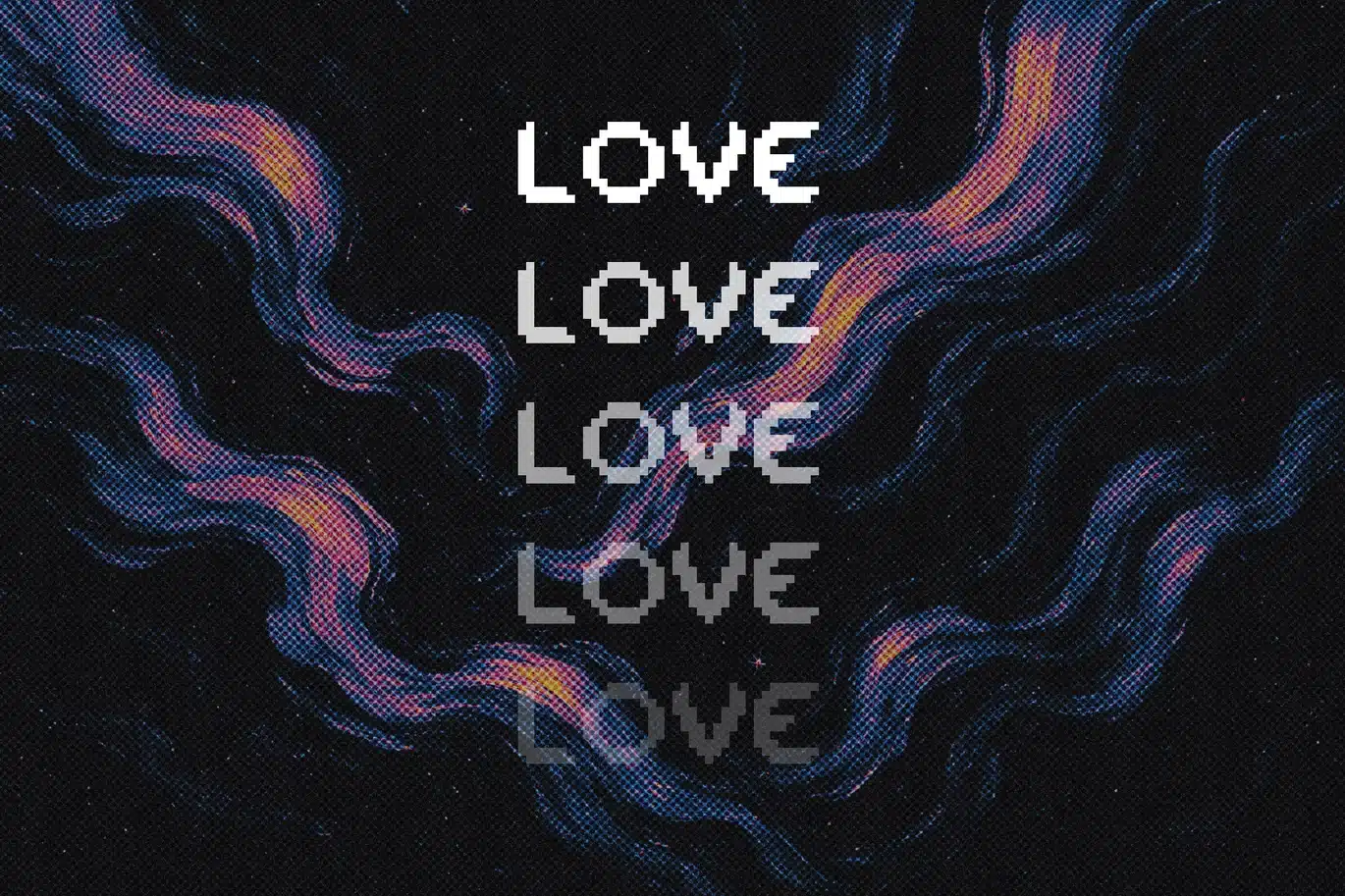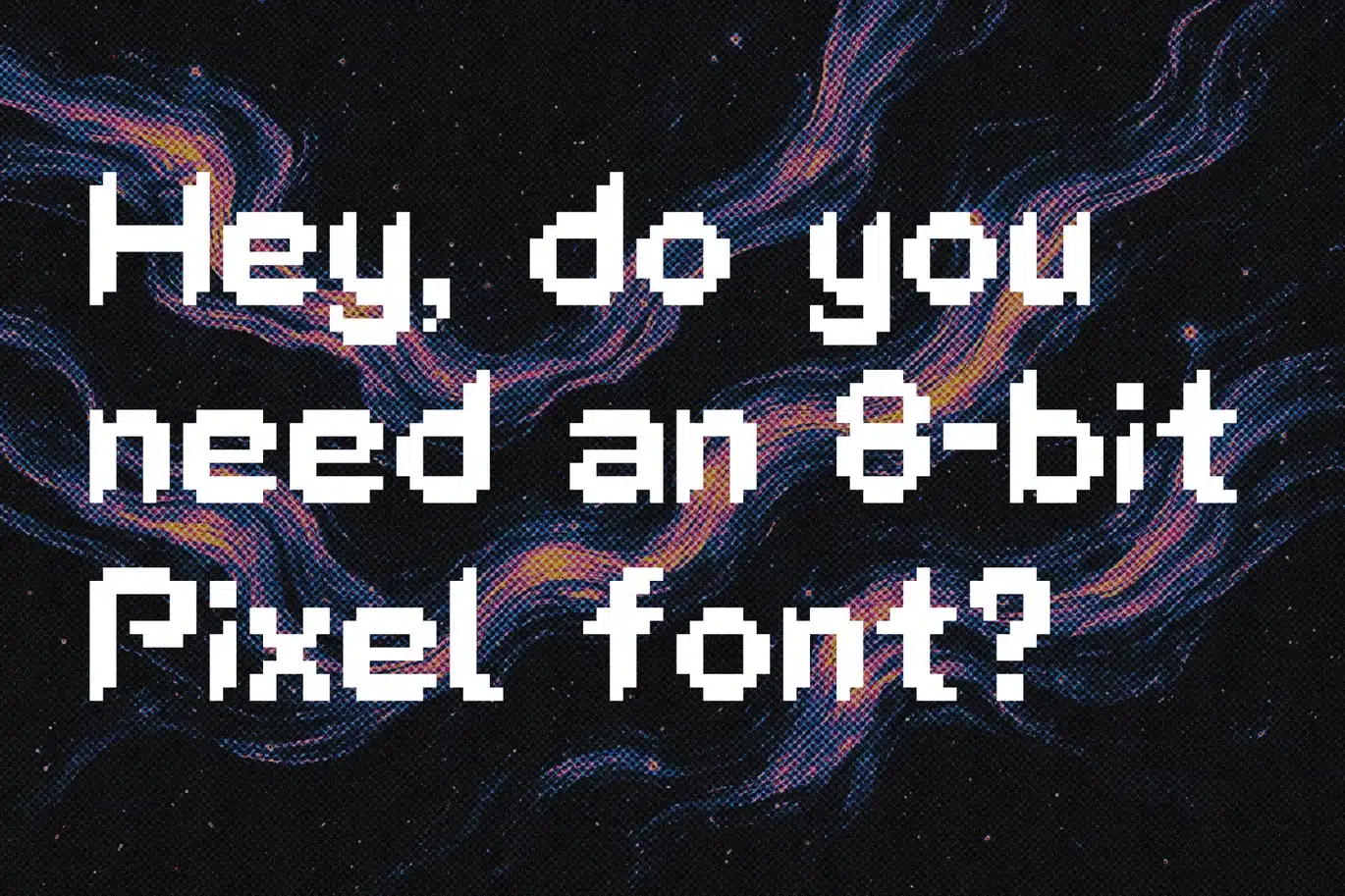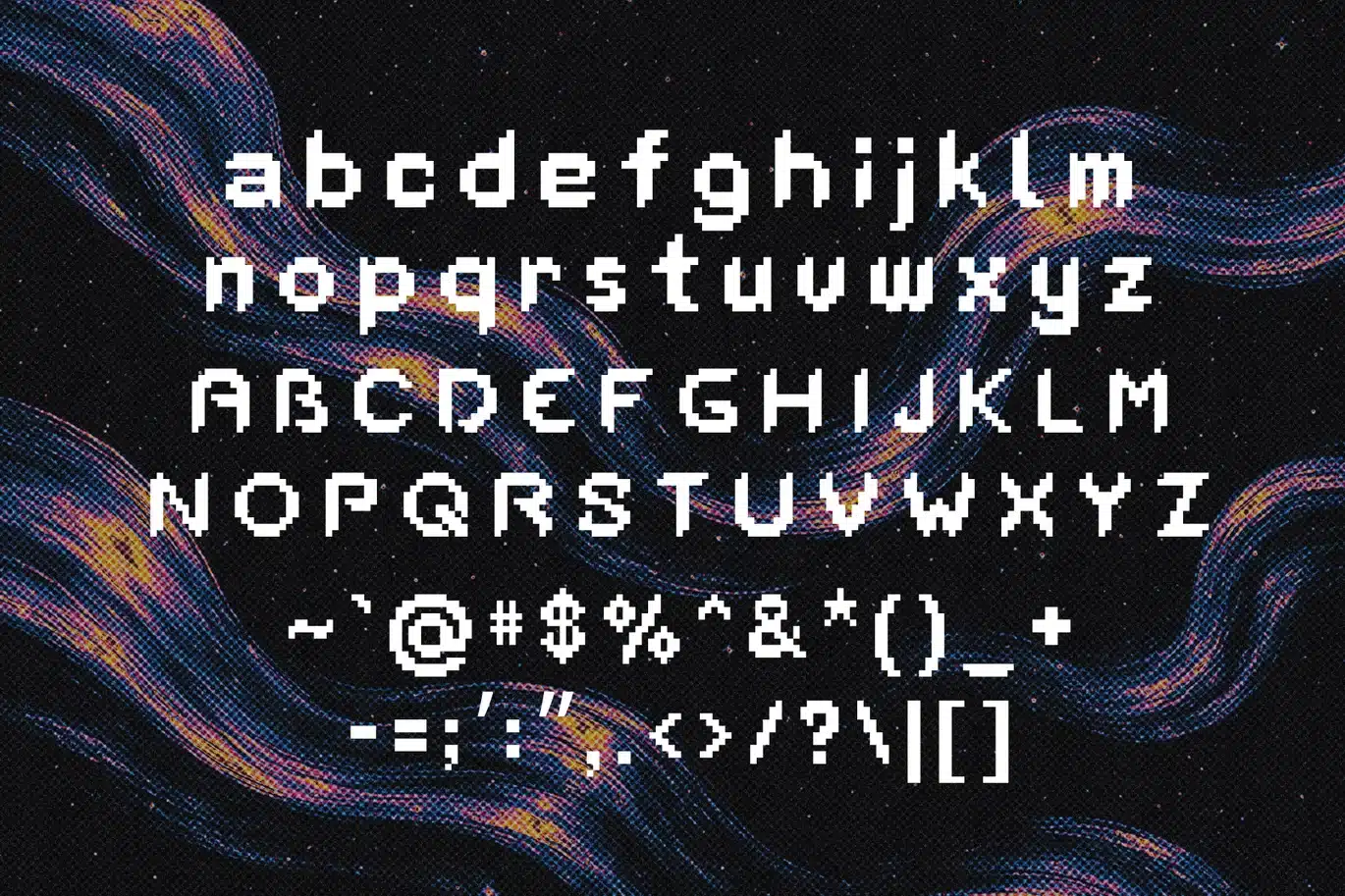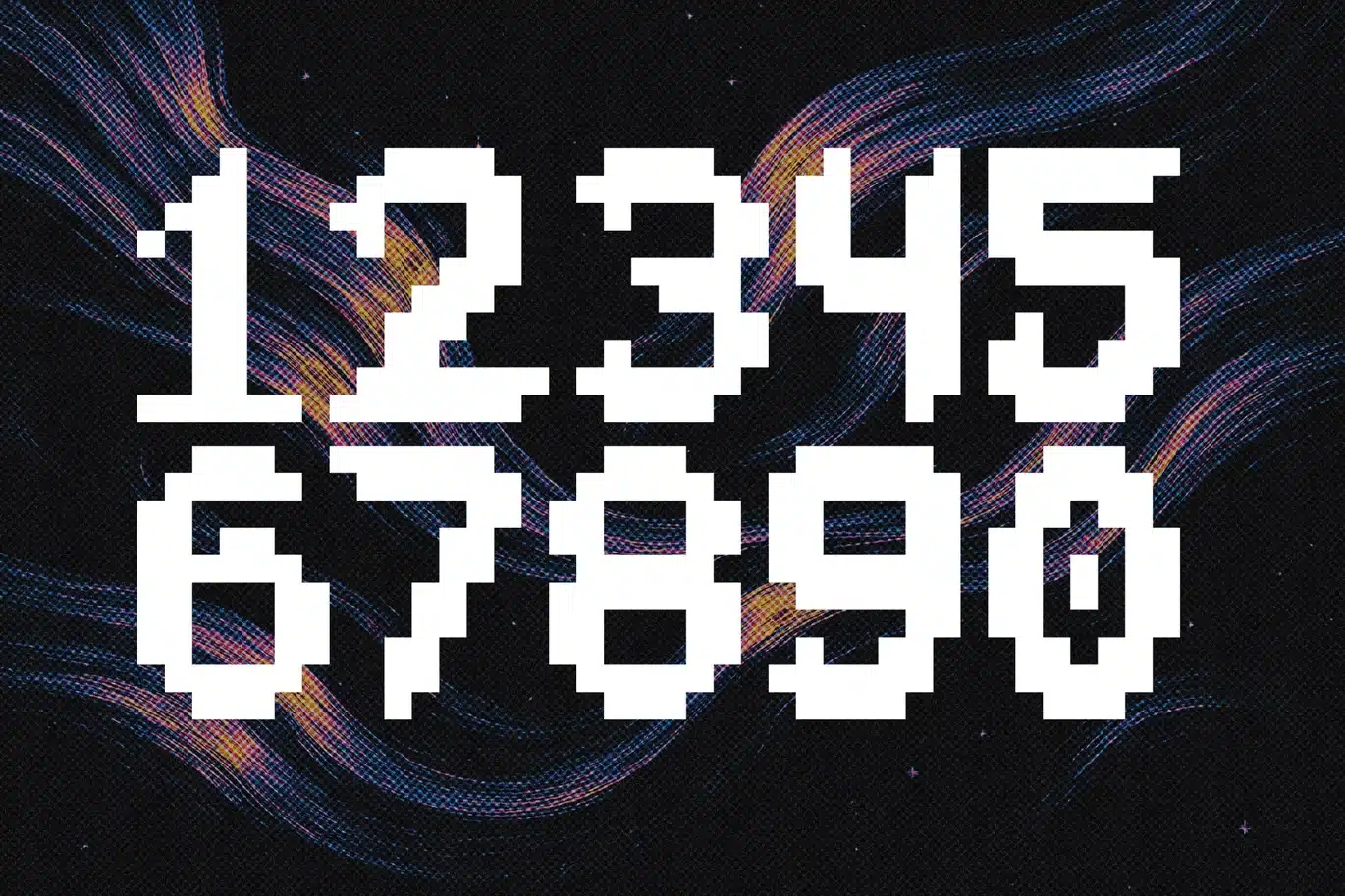
Galactic Grid – Pixel Typeface Font
Galactic Grid is a futuristic 8-bit pixel font that reimagines retro gaming aesthetics through a modern lens. Blending classic pixel structure with surprisingly smooth, serif-like curves, this typeface creates a unique fusion of digital nostalgia and forward-thinking design.
Unlike traditional rigid pixel fonts, Galactic Grid introduces subtle curvature and refined shaping, giving it a sleek, almost sci-fi elegance while still maintaining its grid-based DNA. The result is a typeface that feels both technological and sophisticated, perfect for projects that sit between retro and futuristic worlds.
Each character is crafted with precision, balancing blocky pixel forms with softened edges that enhance readability and visual flow. This makes it ideal for both bold display use and stylized digital layouts.
Perfect for futuristic branding, gaming interfaces, UI design, posters, tech visuals, sci-fi themes, and modern digital projects, Galactic Grid stands out as a fresh evolution of the pixel genre.